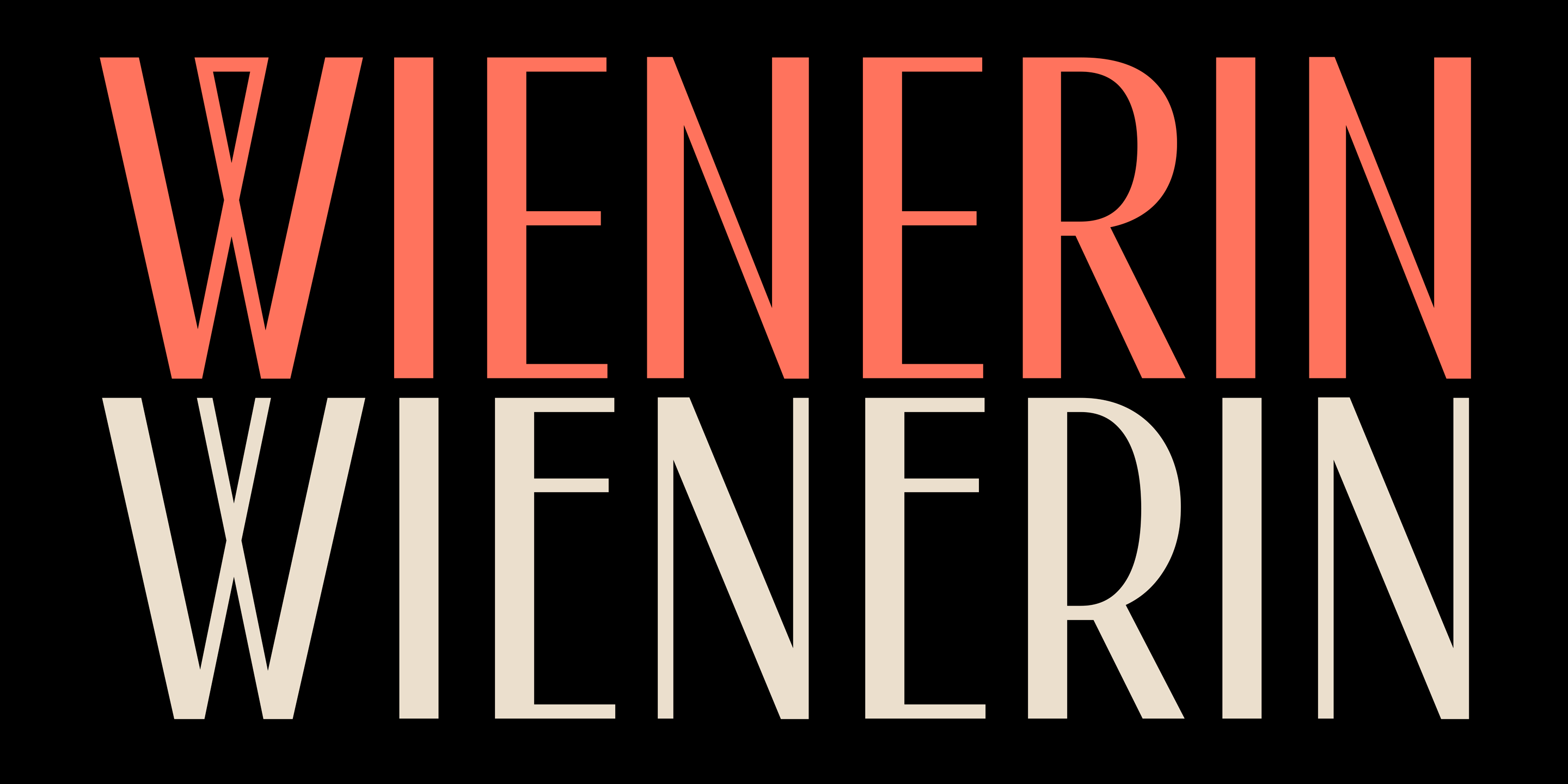
Wienerin Font is ideal for authentic Austrian restaurants, classical music festival materials, European cultural events, traditional Vienna-style cafés, imperial heritage branding, classical concert programs, sophisticated European tourism, and elegant Central European communications.
This font is exciting because it captures the imperial elegance and cultural sophistication of Vienna's golden age with refined letterforms that embody centuries of Austrian artistic tradition and musical heritage. The Wienerin Font represents the essence of Viennese charm and cultural refinement, transforming ordinary text into graceful expressions that celebrate the timeless beauty of Central European culture and imperial elegance.
The Wienerin Font family includes imperial variations such as Regular, Bold, Light, Elegant, Italic, Imperial, Condensed, and Extended versions, providing European cultural designers with comprehensive tools to create authentic typography that honors Austrian heritage and celebrates the sophisticated traditions of Viennese culture across all classical applications.
Experience Viennese elegance with Wienerin Font Free Download that brings Austrian sophistication to every cultural design project. This elegantly crafted typeface combines imperial aesthetics with contemporary functionality, making it perfect for cultural institutions, classical music organizations, and European heritage brands celebrating Austrian traditions and Viennese refinement. The font's graceful character design ensures your message conveys cultural authority and imperial elegance while maintaining excellent readability across all cultural applications. Whether you're developing Austrian cultural center branding, creating classical music materials, or designing communications that celebrate European heritage, Wienerin Font delivers the sophisticated typography that resonates with audiences who appreciate classical culture and Austrian artistic traditions. Its versatile design works beautifully across digital and print media while preserving the imperial grace that makes Viennese communications feel genuinely cultured and worthy of the respect that comes from centuries of Austrian cultural excellence and the timeless appeal of imperial European sophistication and musical heritage.